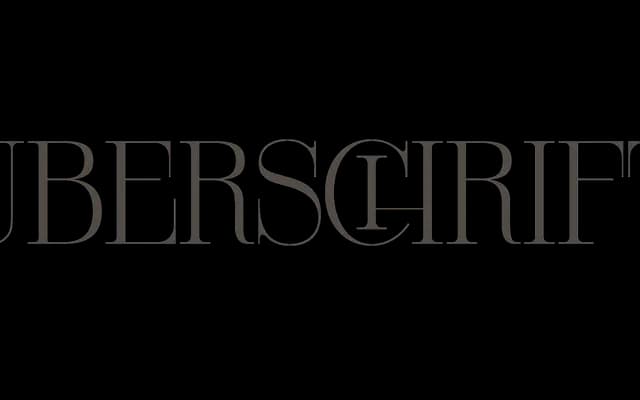
Überschrift
FDI Type Foundry · Friedrich Althausen · 2014
A capitals-only display serif by Friedrich Althausen, built around roughly 200 discretionary ligatures for headline and logotype work.
Released in 2014, this single-weight typeface offers only uppercase letters but compensates with around 200 discretionary ligatures and a selection of alternate characters, giving designers considerable room to craft expressive headlines and wordmarks. The ligature set requires an OpenType-savvy application to access fully. Best suited to short-form display contexts; not intended for running text.
A capitals-only display typeface with highly decorative discretionary ligatures, placing it firmly in the display category; the letterforms carry serif characteristics suited to headline and logotype work.